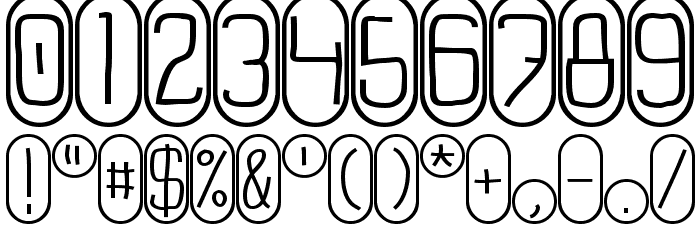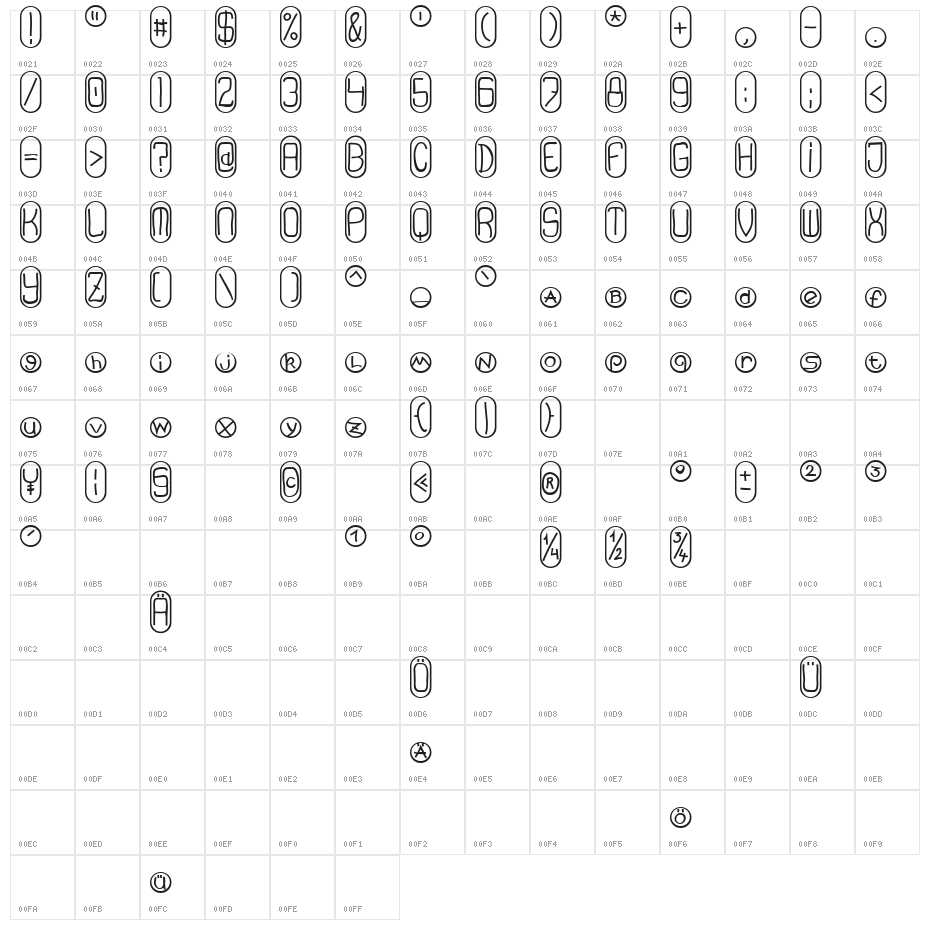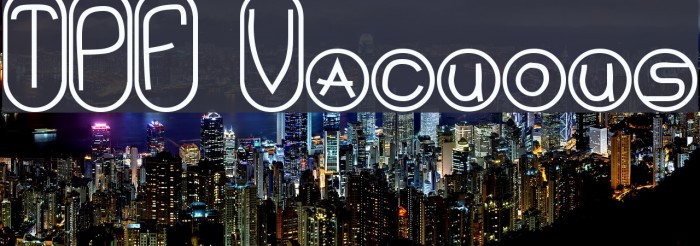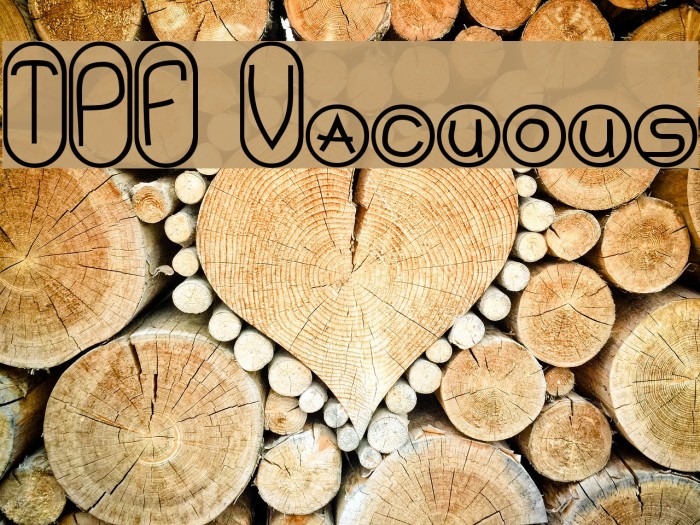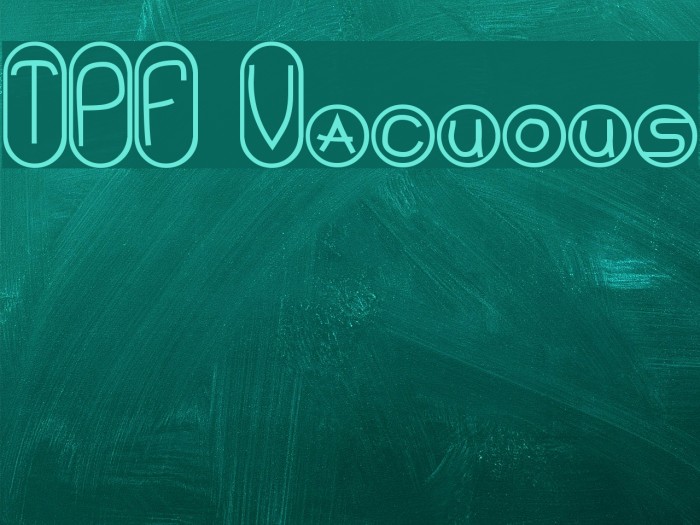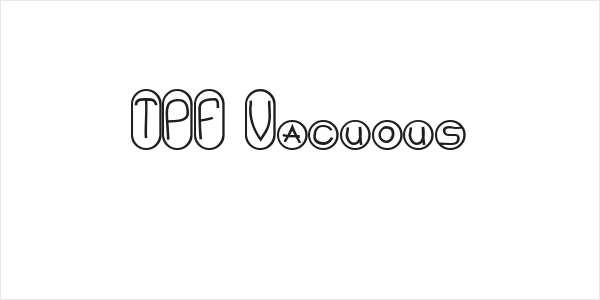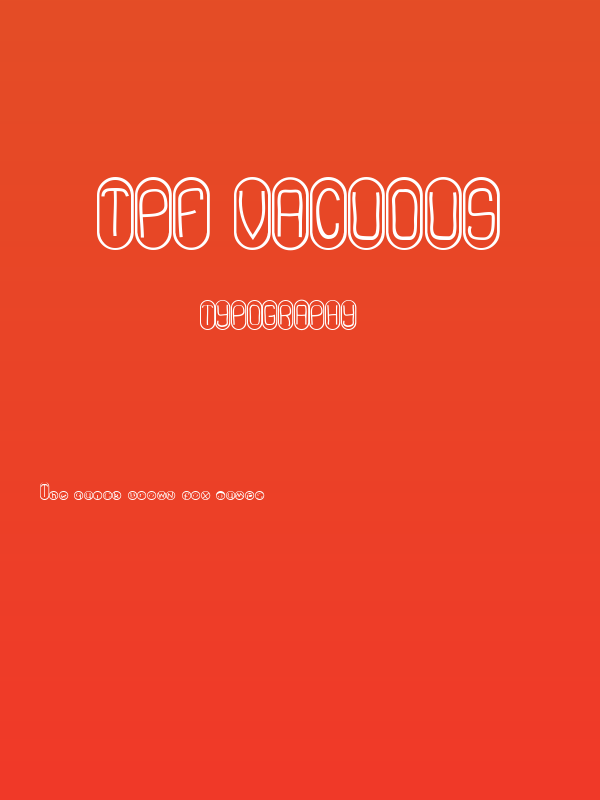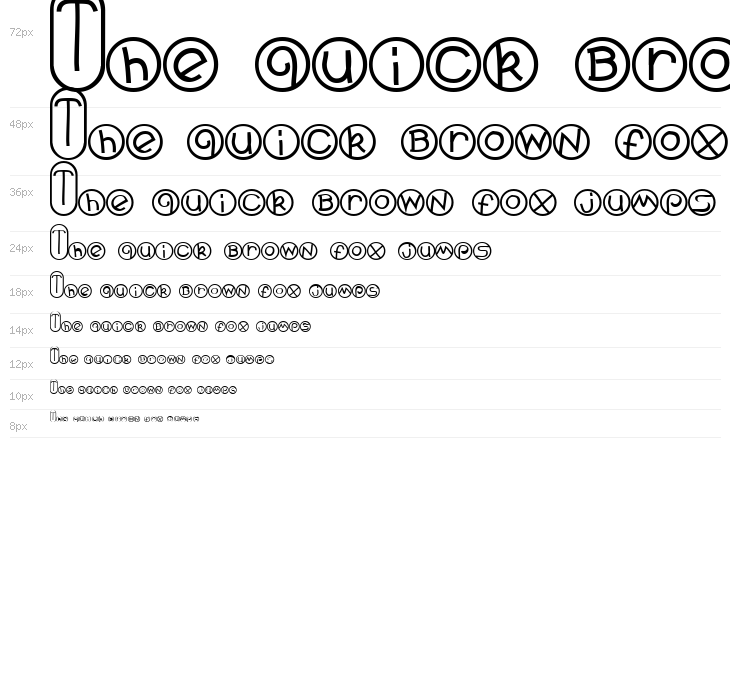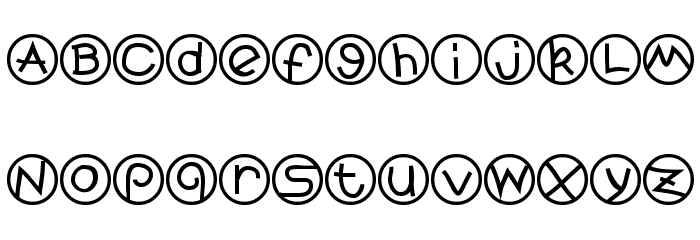
TPF Vacuous Font
TPF Vacuous Description
This font features a unique and playful design with each character enclosed in an oval or circular shape, giving it a distinctive bubble-like appearance. The uppercase letters are bold and rounded, while the lowercase letters maintain a similar style but with slightly smaller proportions. The numbers and special characters follow the same design principle, ensuring consistency across all elements. The font's outline style adds a modern and whimsical touch, making it stand out in any design project. Its geometric and symmetrical structure provides a sense of balance and harmony, while the open spaces within the characters enhance readability. This font is ideal for creative and fun projects that require a bold statement.
| Proposed Projects | Ideal for children's books, playful branding, posters, and creative digital content. |